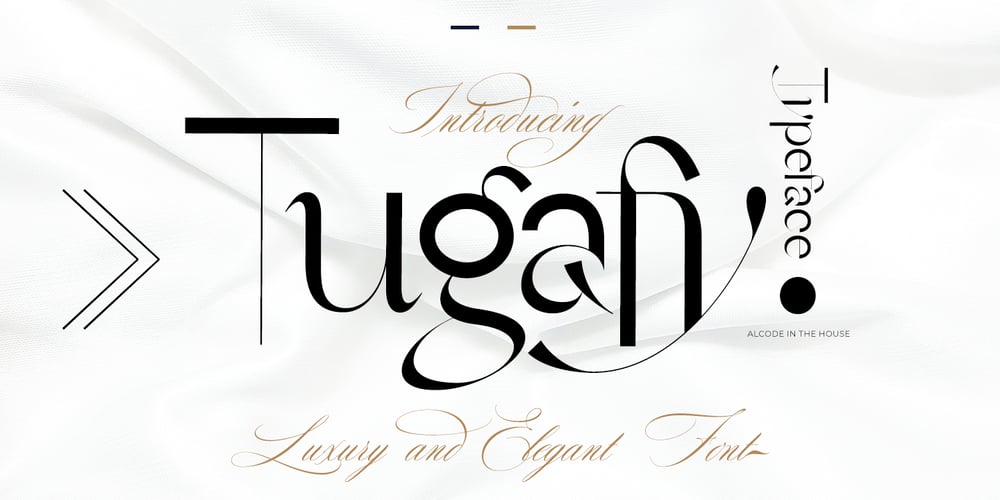
Tugafy Font Family was designed by Sukjana Almunandar and published by Alcode. Tugafy contains 1 styles and family package options. Tugafy is a Decorative display font with ligatures also complete multilingual glyphs. Tugafy come with Regular style, it will make this typeface can be used in all design projects and works perfectly for pairing with script typeface or handmade fonts, Headlines, Posters, Packaging, T-shirts, Postcards, Invitation, Wedding Sign, Sign Painting, Signboard, and much more.Try Tugafy, enjoy the richness of OpenType features and let her fun and elegant excitement make you happy and enhance your creativity! You can use this font very easily.• Multilingual Support And Special LigaturesPairing with Dalgond Script